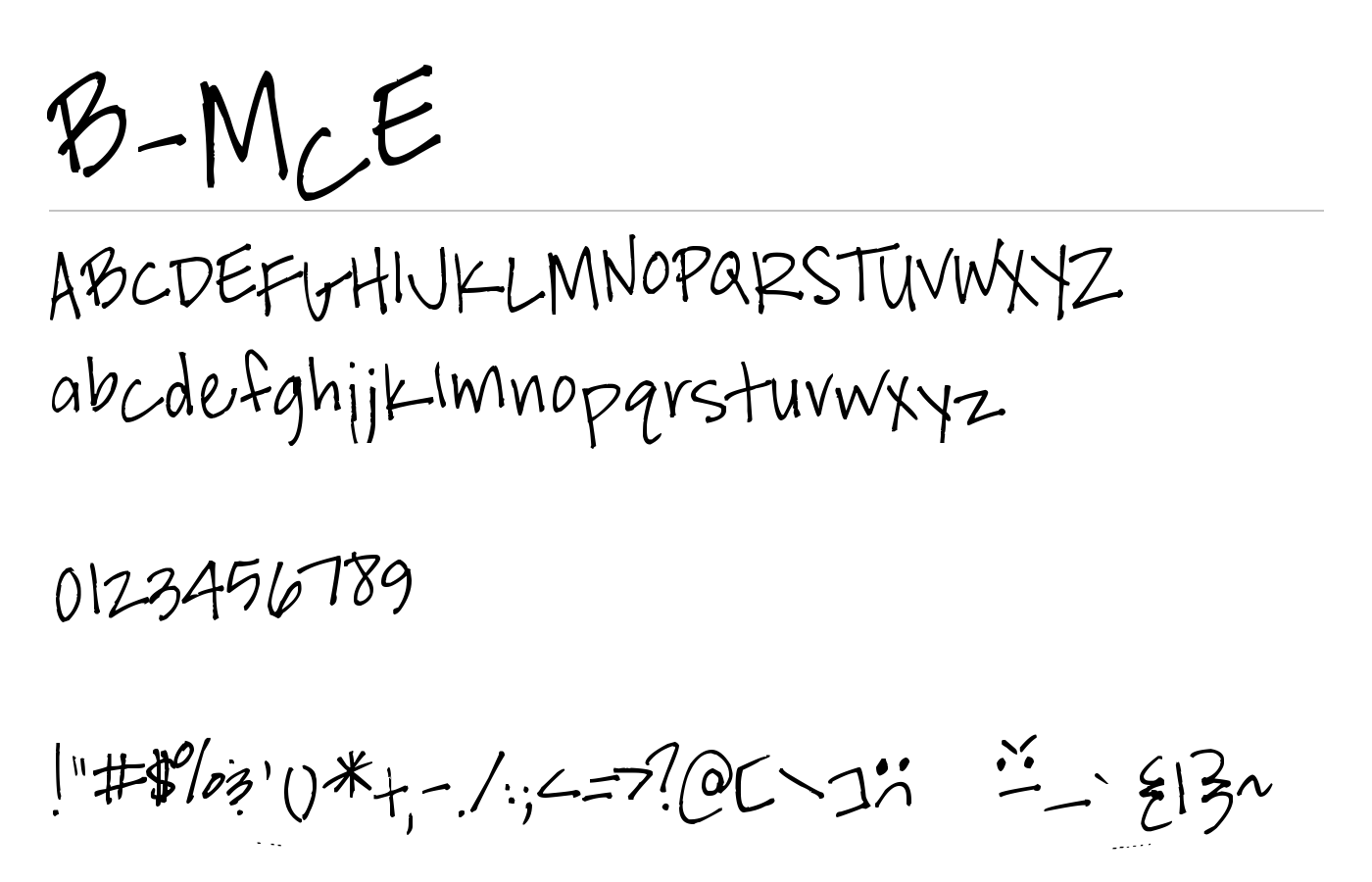
B-McE is a playful, handwritten sans serif font with a casual and energetic feel. Its slightly uneven strokes and loose letterforms give it a natural, informal charm, making it perfect for creative projects, personal branding, and youth-oriented designs. This font works well in headlines, posters, and any context that benefits from a friendly, approachable style.
B-McE Font